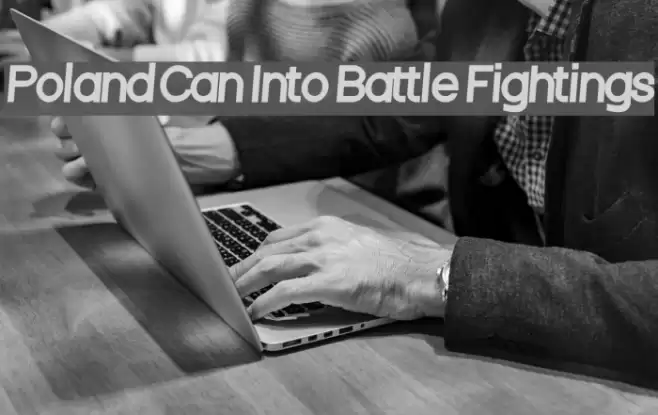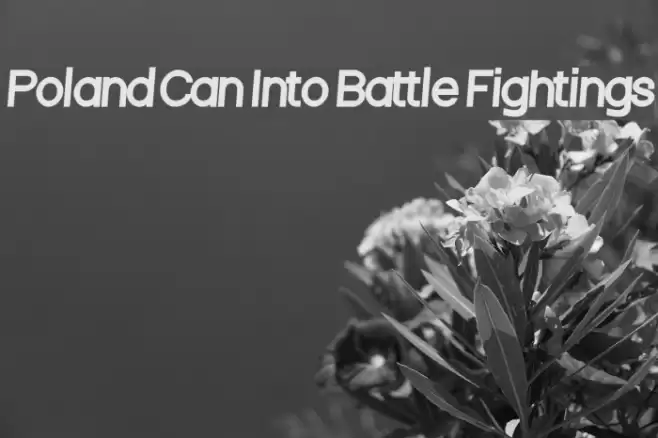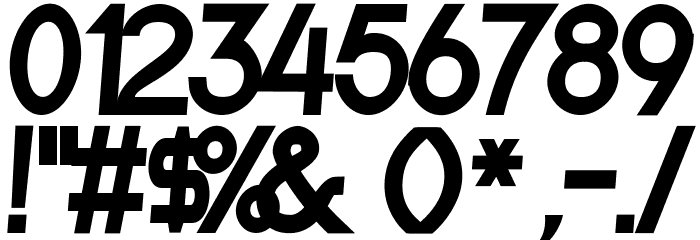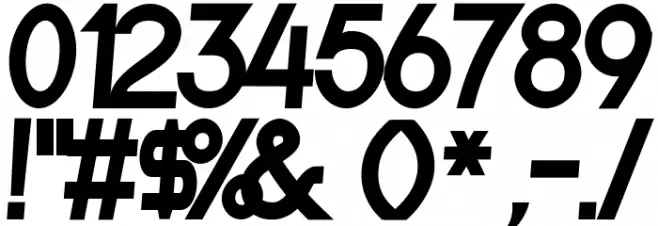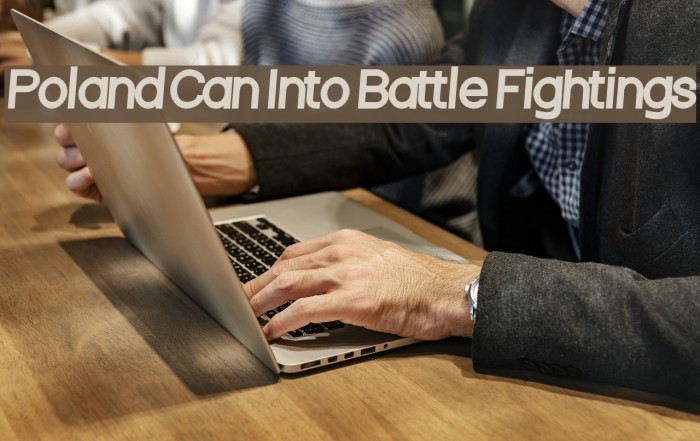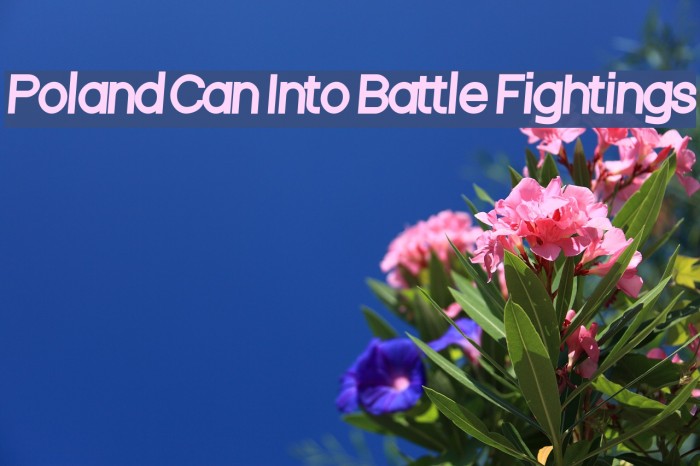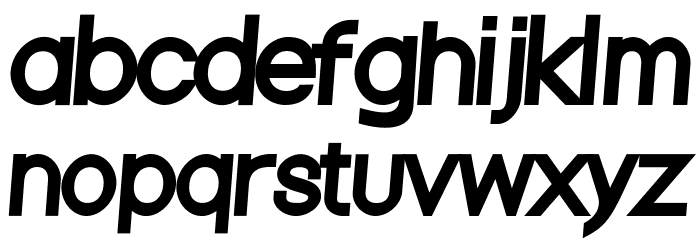
Poland Can Into Battle Fightings Font
Poland Can Into Battle Fightings Description
This font features a bold and modern sans-serif style with clean, geometric lines. The uppercase and lowercase letters are well-proportioned, with a consistent stroke width that gives the font a uniform appearance. The numerals are clear and legible, maintaining the same boldness as the alphabetic characters. Special characters are included, such as punctuation marks and symbols, which are designed to match the overall aesthetic of the font. The italicized style adds a dynamic and contemporary feel, making it suitable for various design applications.
A bold, modern sans-serif font with italicized style and geometric lines from Uncategorized fonts.
- Proposed Projects: Ideal for branding, advertising, headlines, and digital media projects that require a modern and bold aesthetic.
- Use Case: Headlines, Logos, Digital Media